The Monospace Web
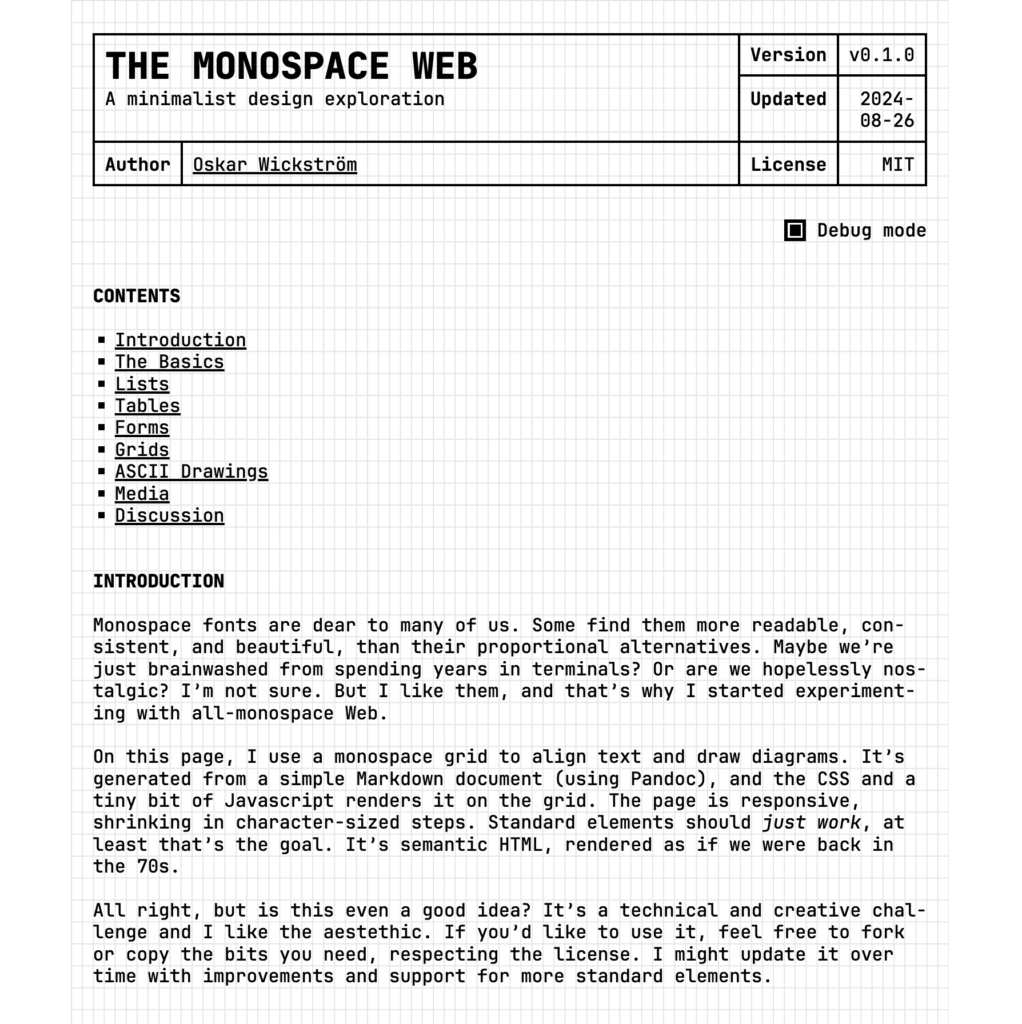
When so many “typography experiments” are based around creating unreadable lettering or randomized layouts, it’s refreshing to see a very down-to-earth project like Oskar Wickström’s Monospace Web Experiment. Yearning for a simpler Internet, Wickström, a software developper from Sweden, built this demo page with a monospace grid and font. He documented the whole process in an in-depth article.
To create this grid, the developper chose the font JetBrains Mono, mainly due to its good support for box-drawing characters at greater line heights.